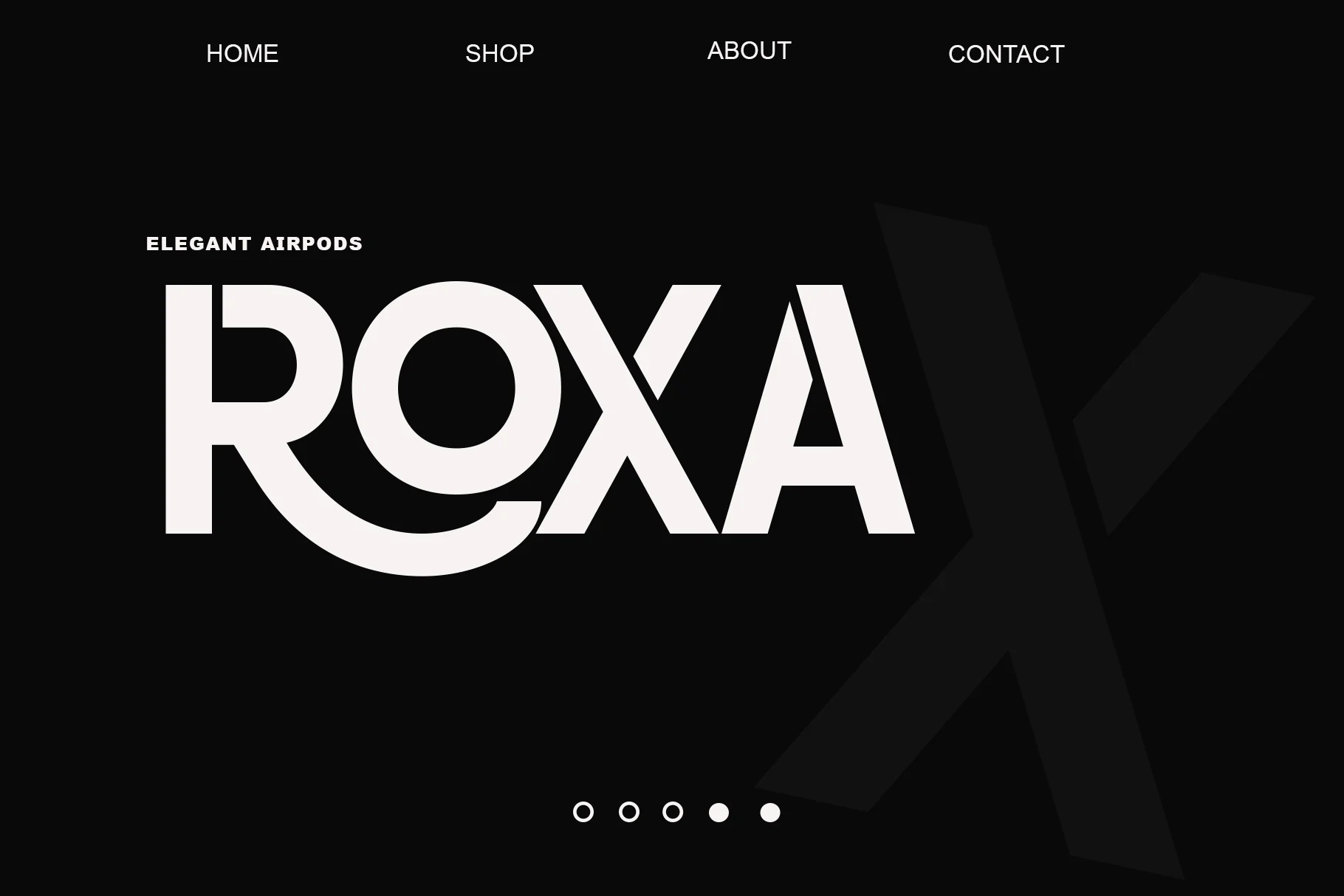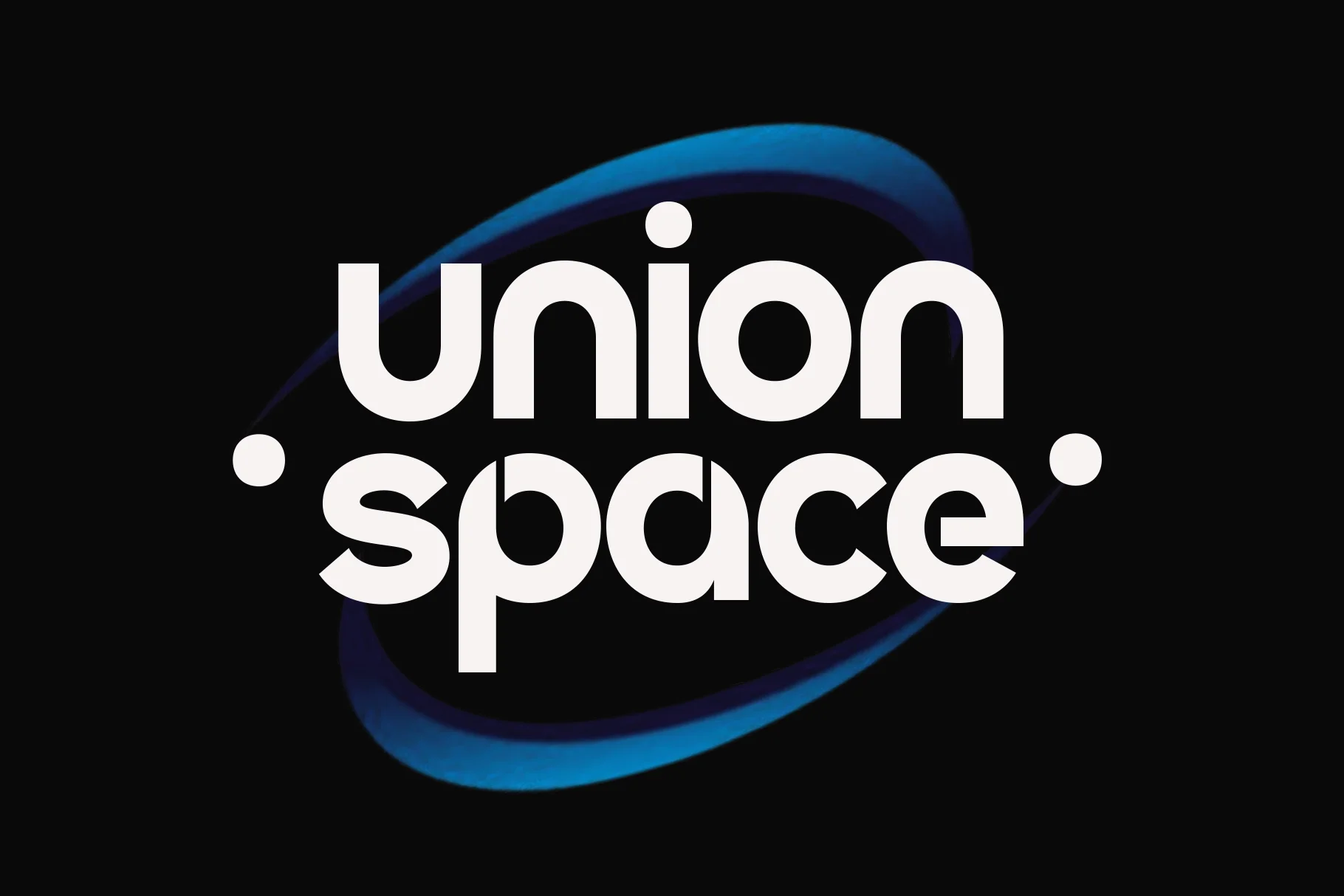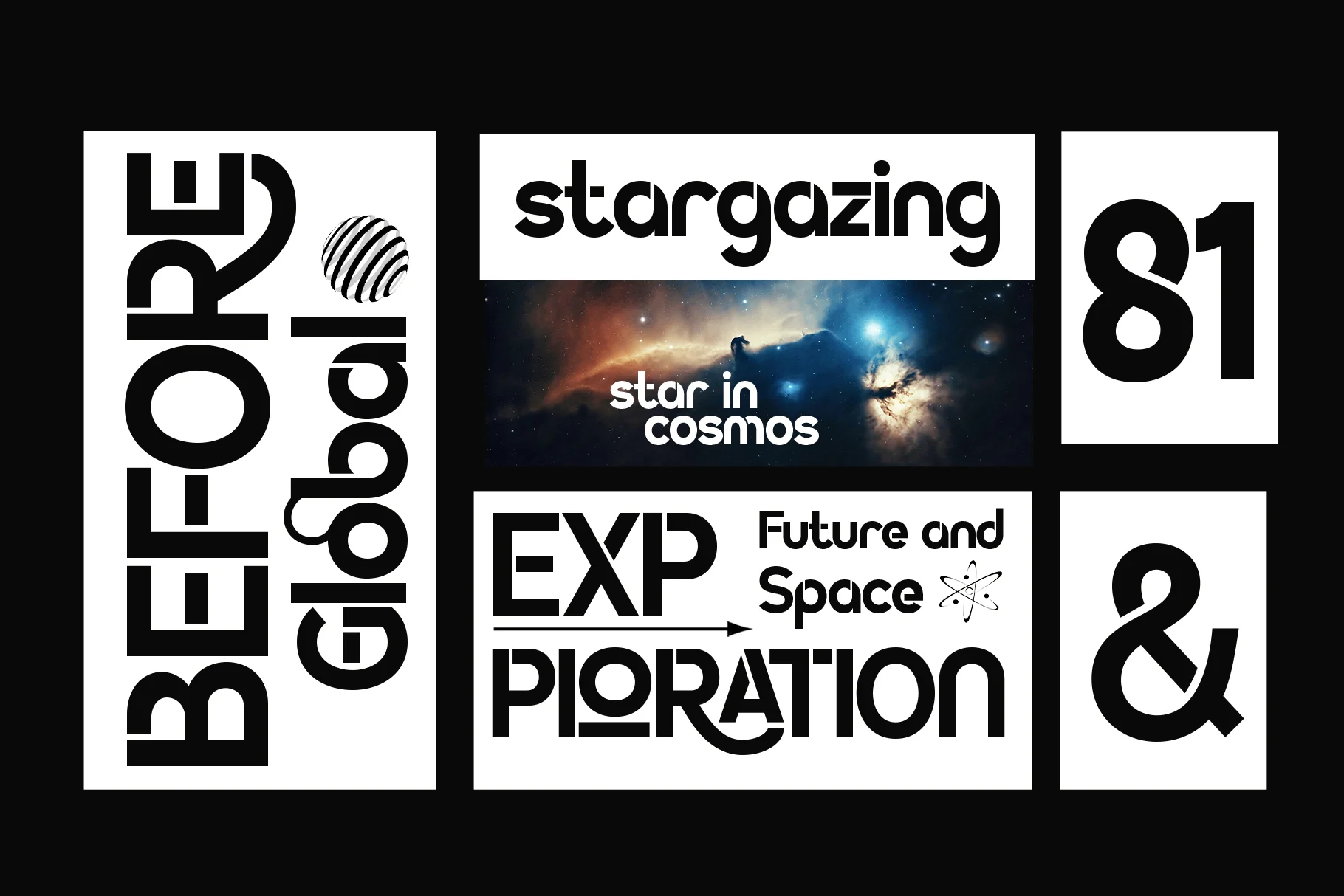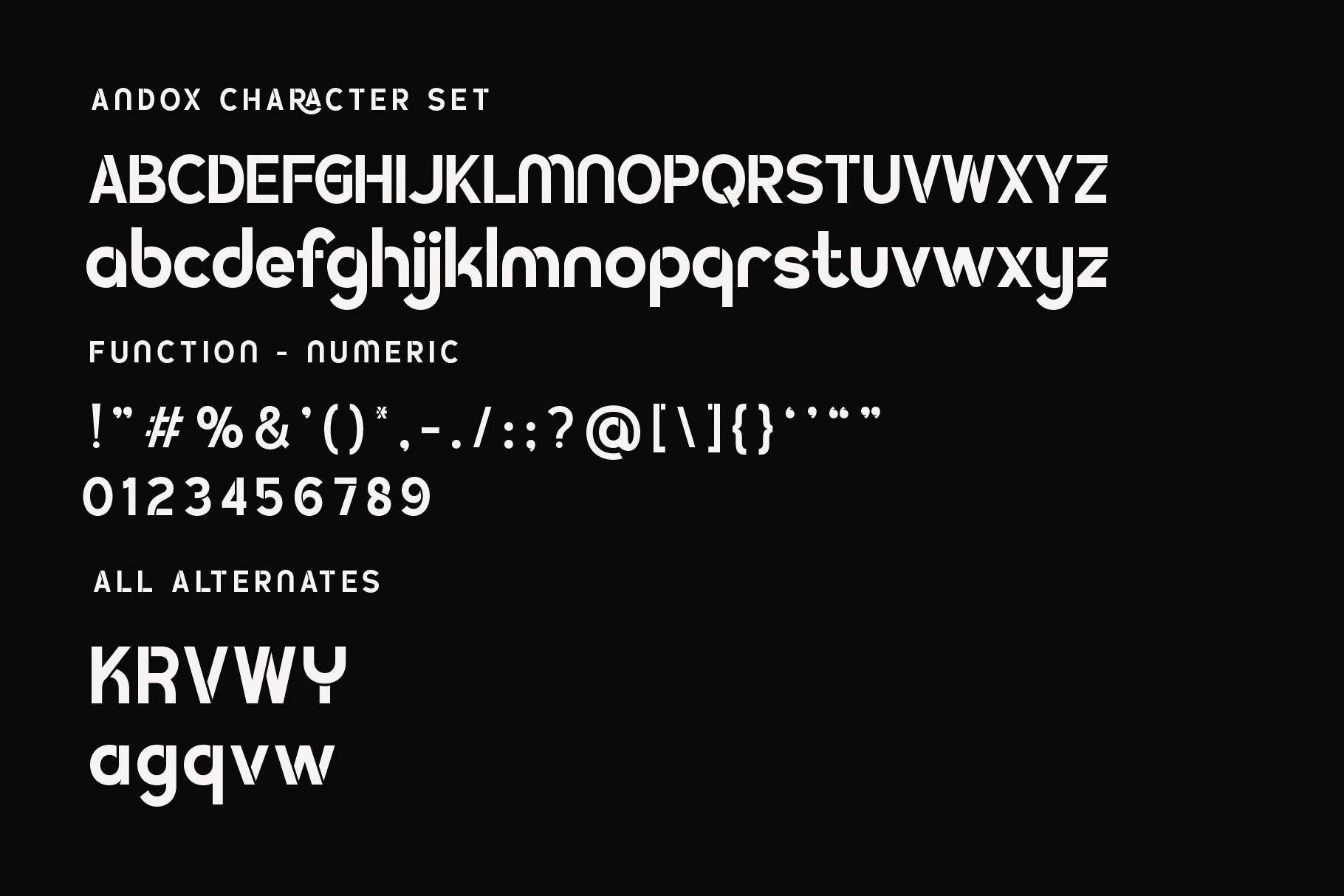
Andox
Andox will perfect for many project: book, magazines, logo, branding, photography, quotes, blog header, poster, advertisements, etc.
Features
- Uppercase and Lowercase – Complete range of letter cases for diverse uses.
- Numerals – Includes numbers for various creative needs.
- Functional – Designed for efficiency and aesthetic appeal.
- Multilingual Support – Includes characters for multiple languages.
- Alternate Variations – Offers creative style options.